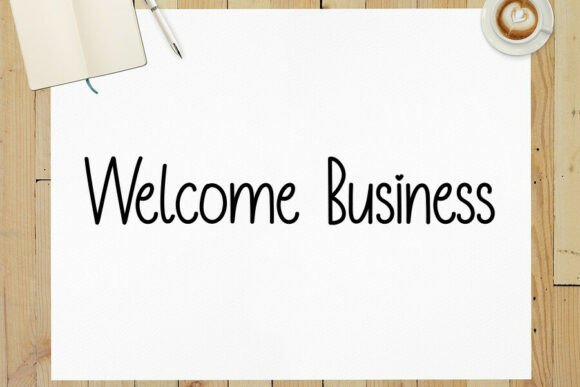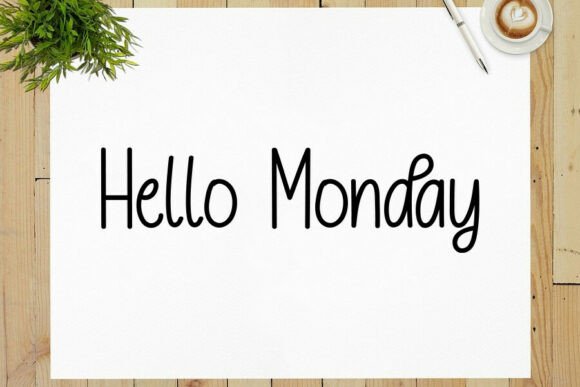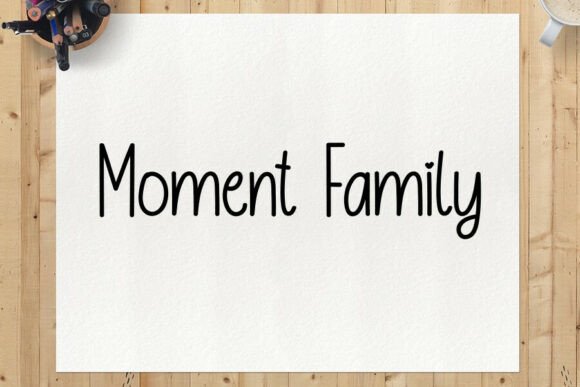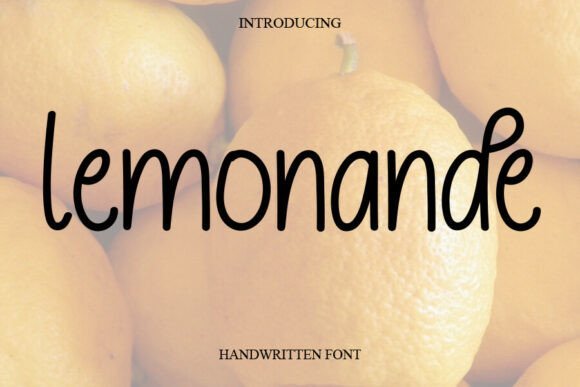
Introduction to Lemonande Font
Lemonande is a simple handwritten font.
This versatile font has a wide spectrum of applications ranging from greeting cards to headlines and is guaranteed to add a simple and natural feel to your next project .